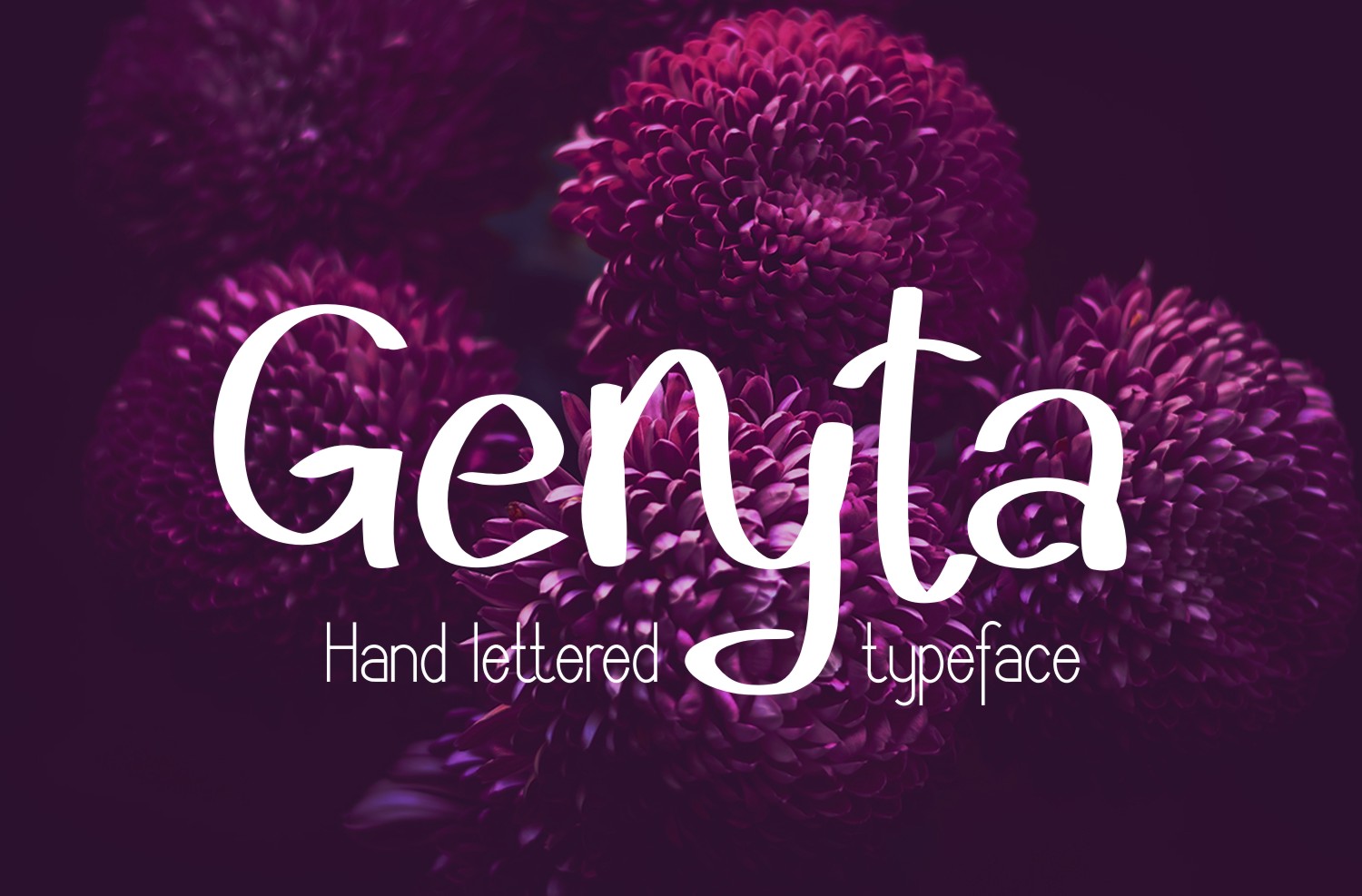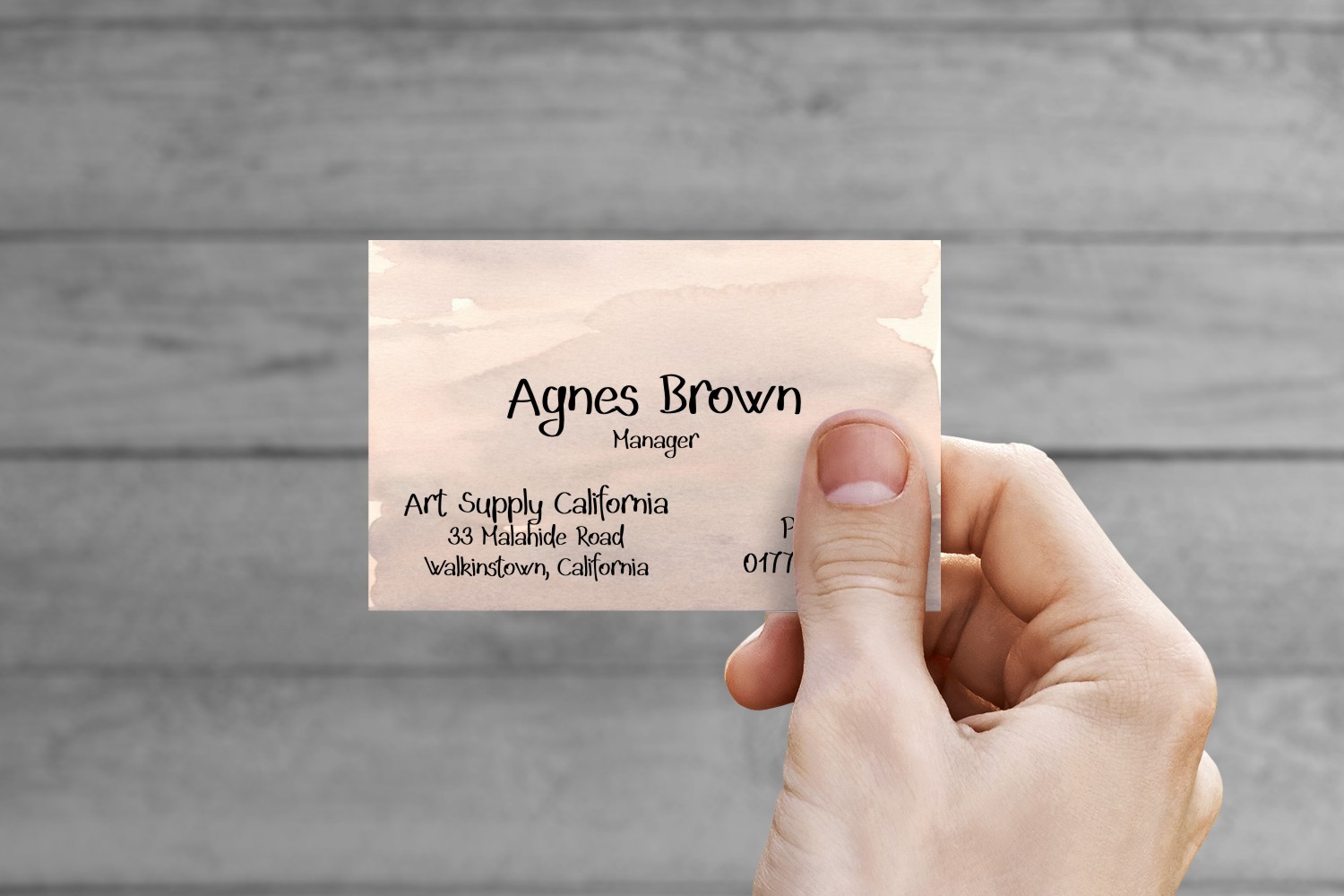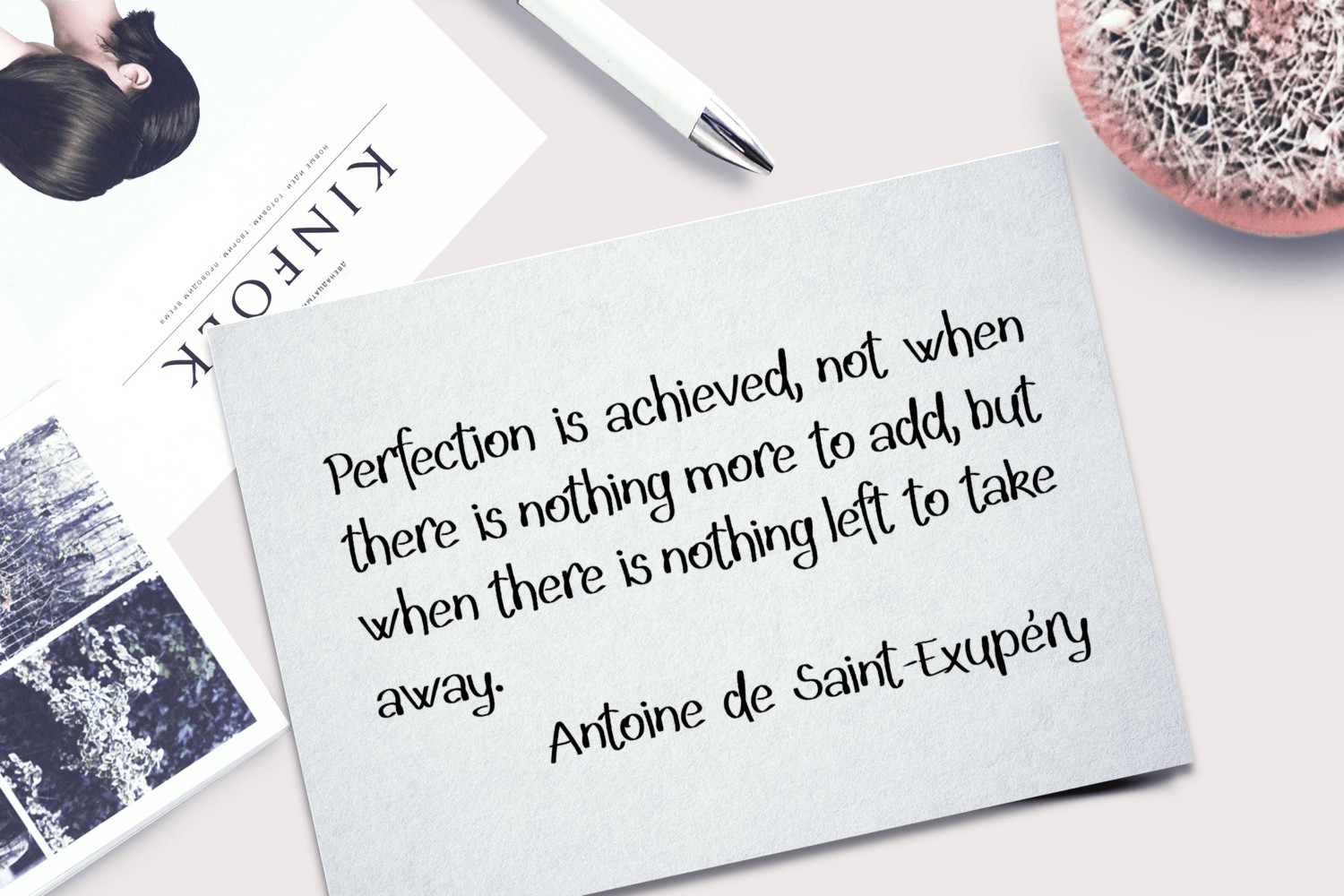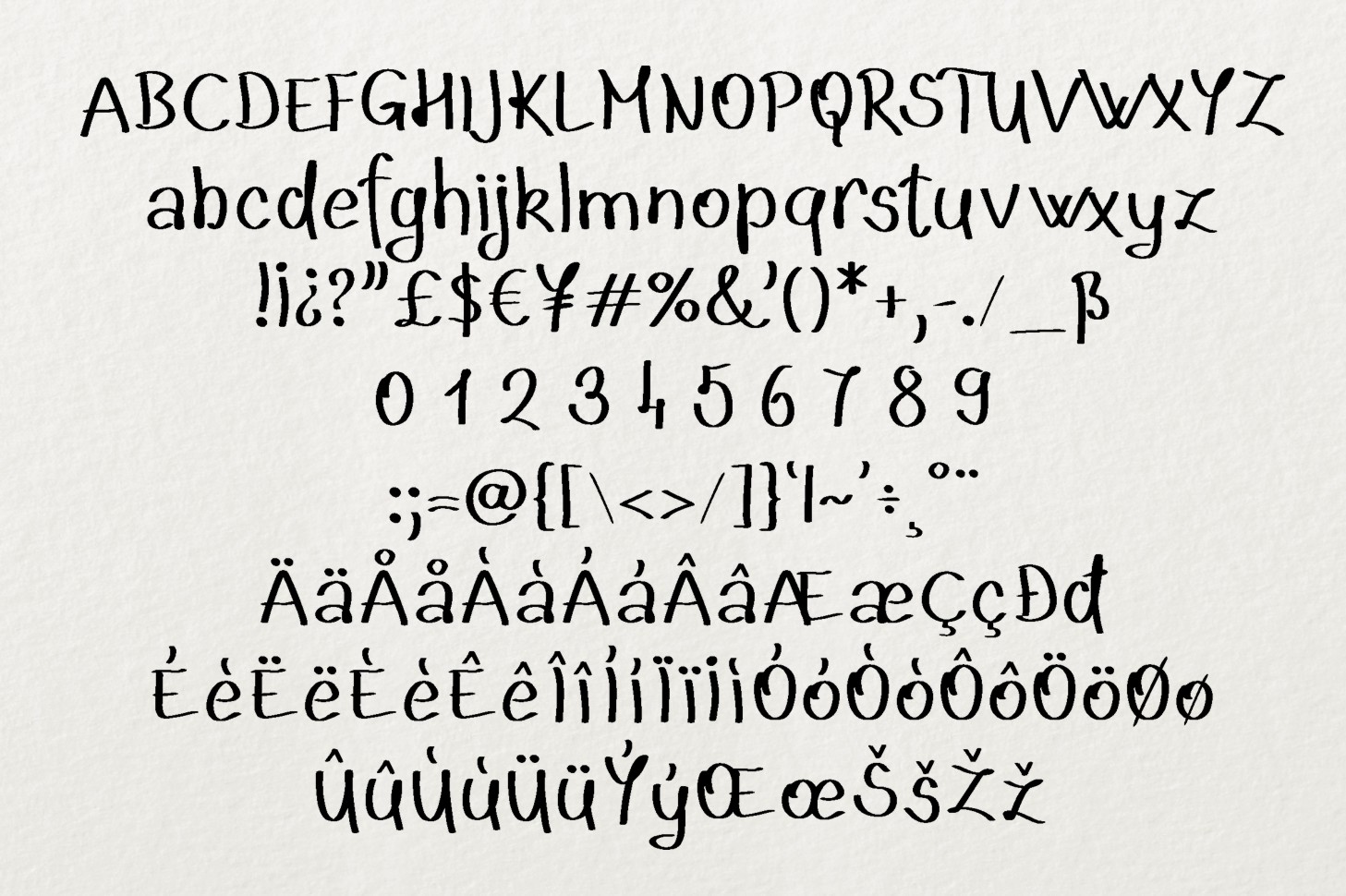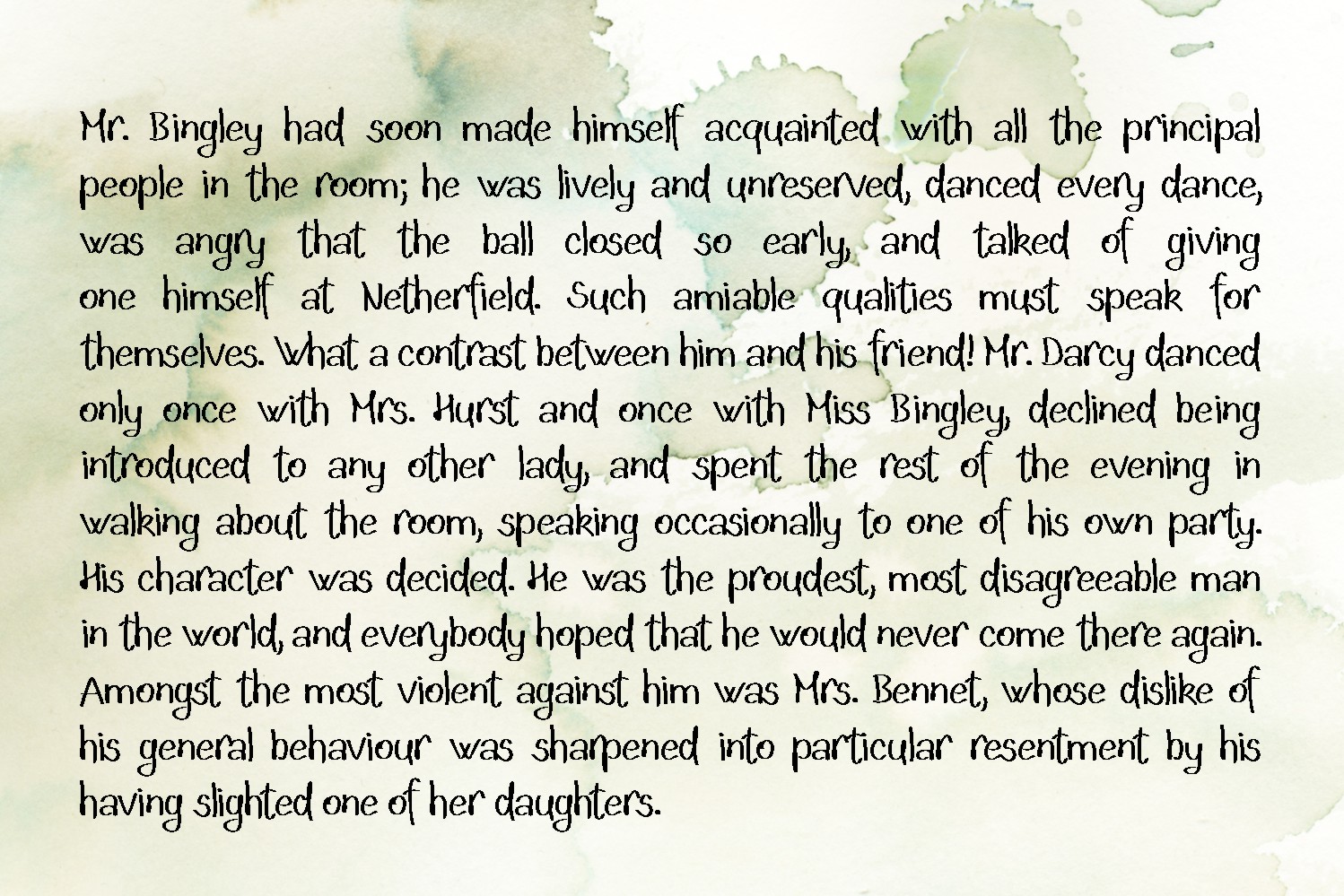
Geryta Font
About Geryta Font
This delicately designed script font is a great asset to your projects; it has a nice weight that makes it applicable for a wide number of uses at any size.